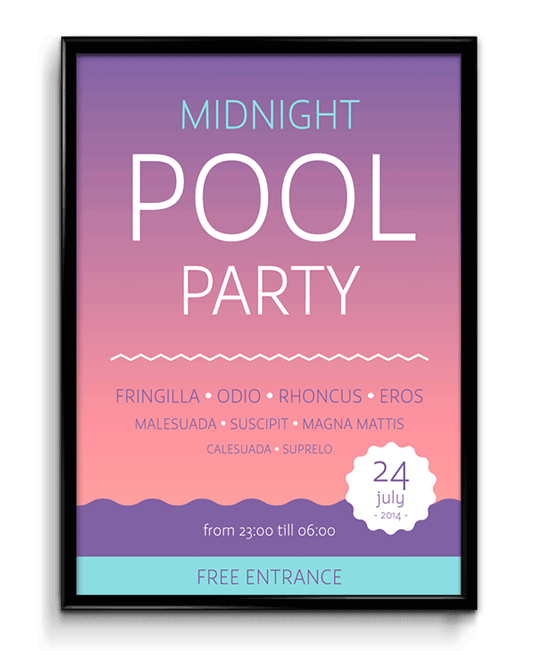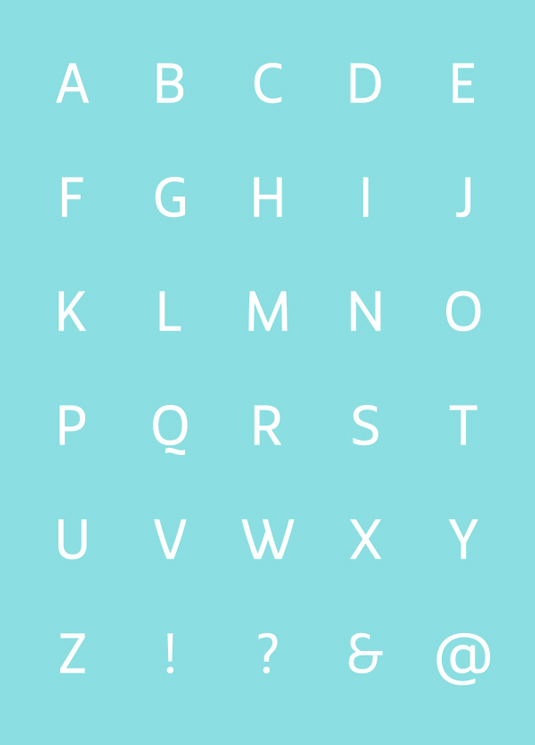
Font of the day: Smidswater
Every day we showcase the best fonts on the web. Today it's Smidswater by Paulus Nabbe and Onno Bevoort, which is totally free to download.
Smidswater font family
Today's font of choice was developed by Paulus Nabbe and Onno Bevoort of creative agency Smidswater. "Our love of print and typography prompted us to design a font especially for our agency," Nabbe comments on Behance. "A font that reflected our ambitions and culture: clean and professional, but, above all, sympathetic and easy on the eye."